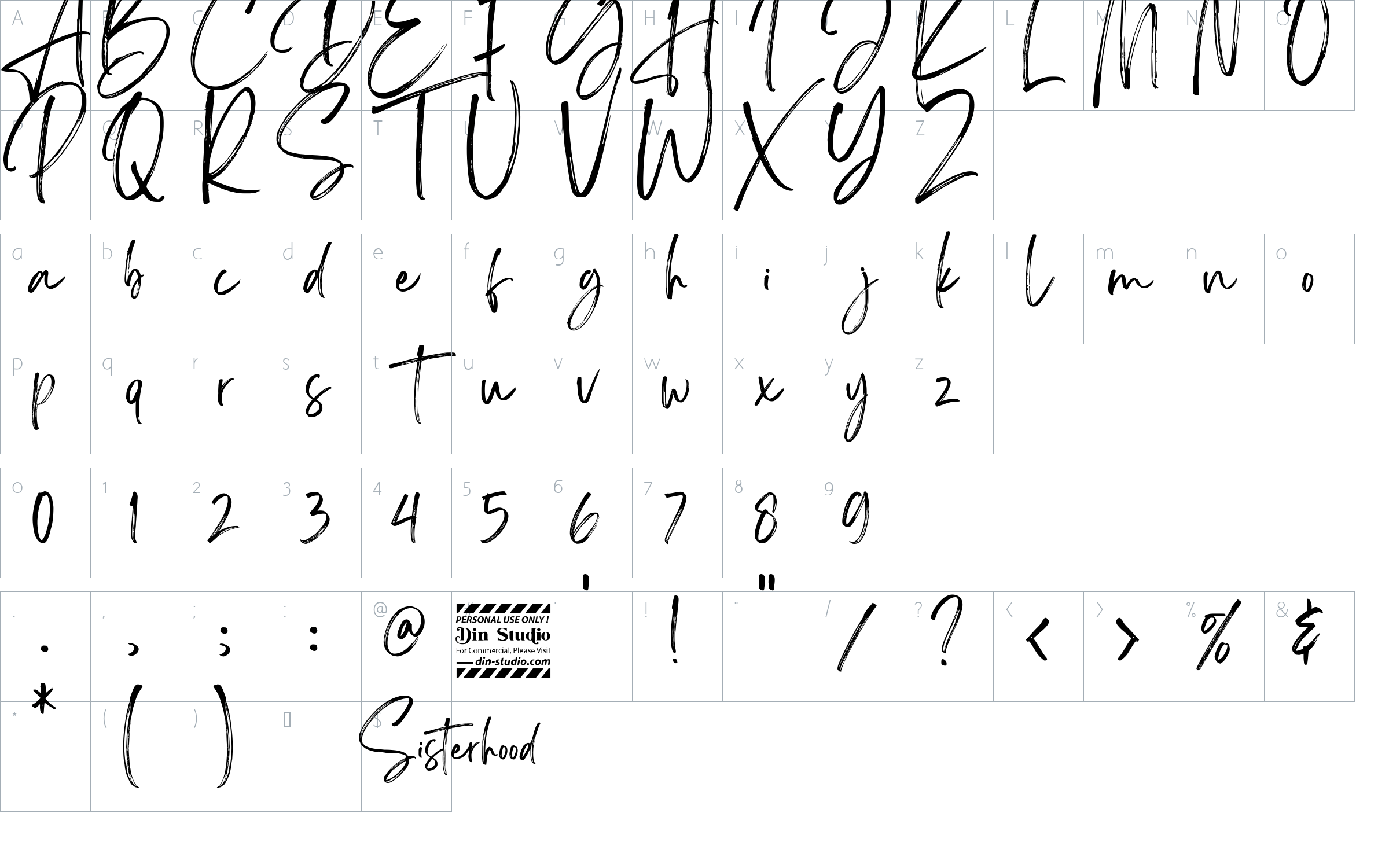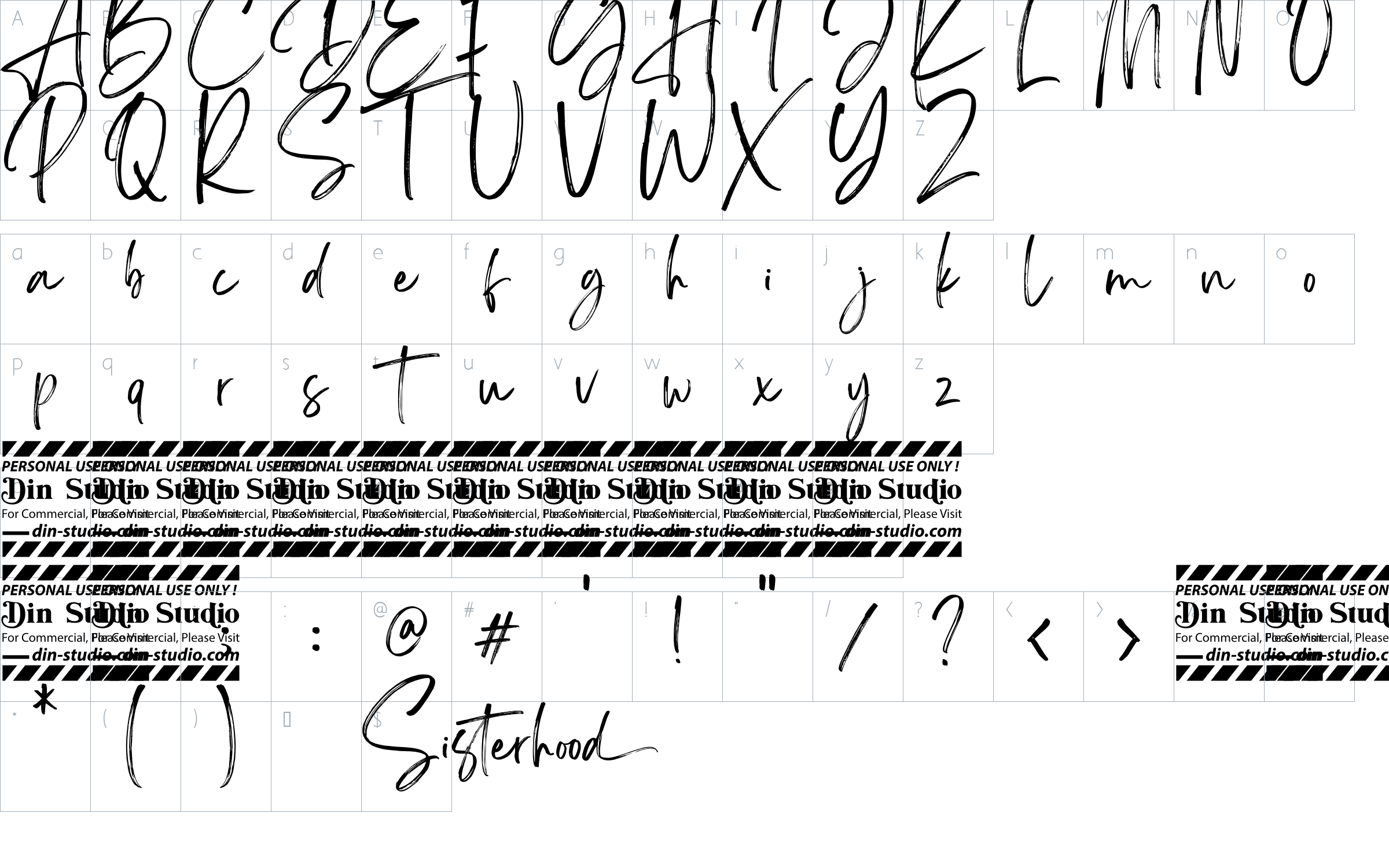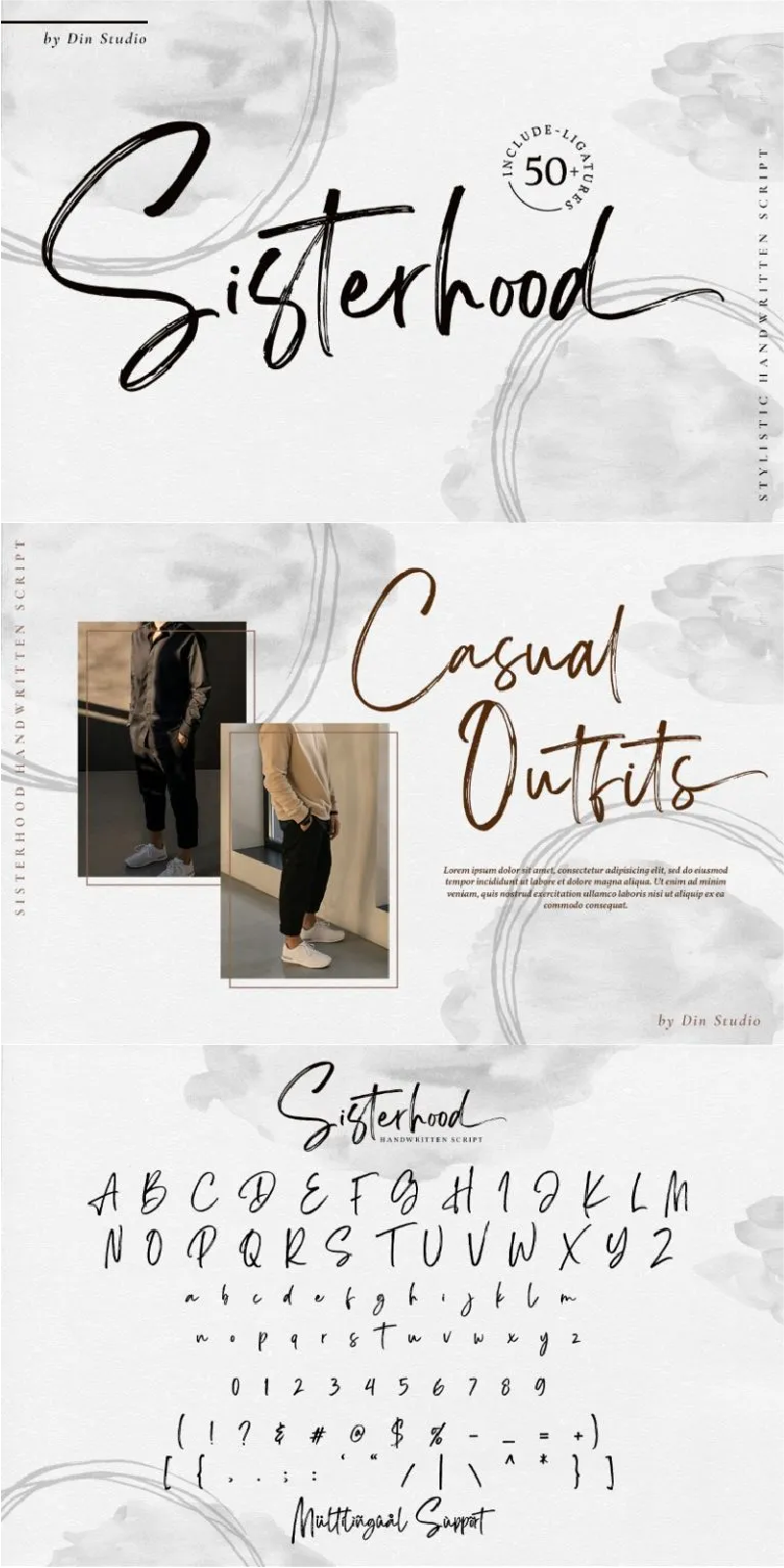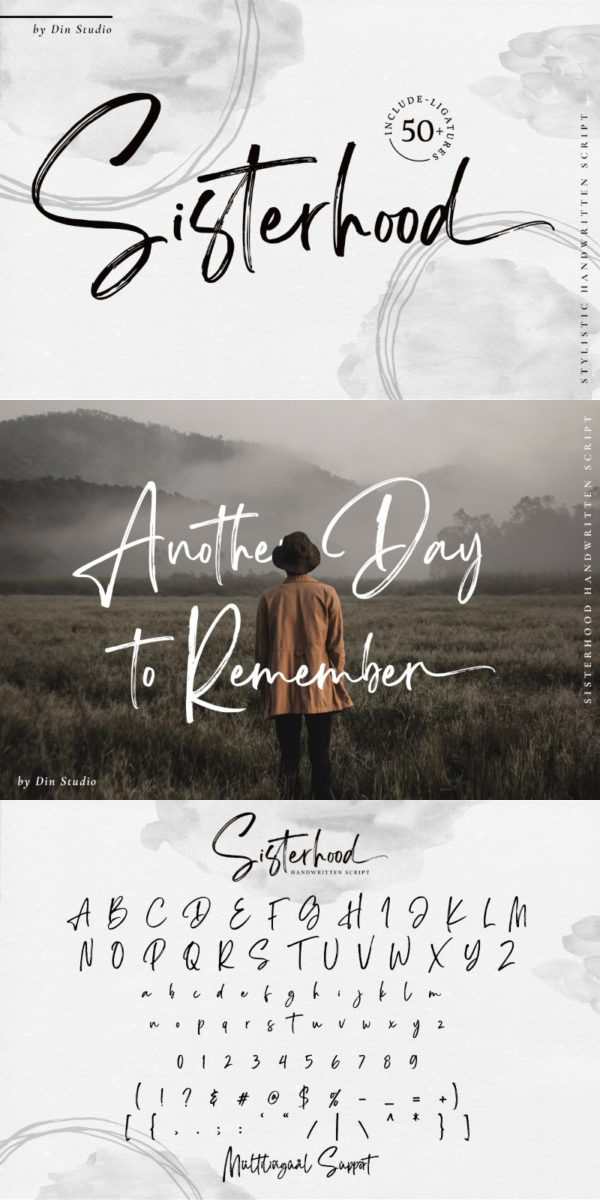
Sisterhood Font
About Sisterhood
Sisterhood is a beautiful brush signature font made for any professional project brandings. Every letter has a unique and beautiful touch by our talented font designers. The font includes a full set of hand lettered uppercase and lowercase letters, numerals, punctuations, and ligatures.
-52 Stylish sets
-52 Ligatures